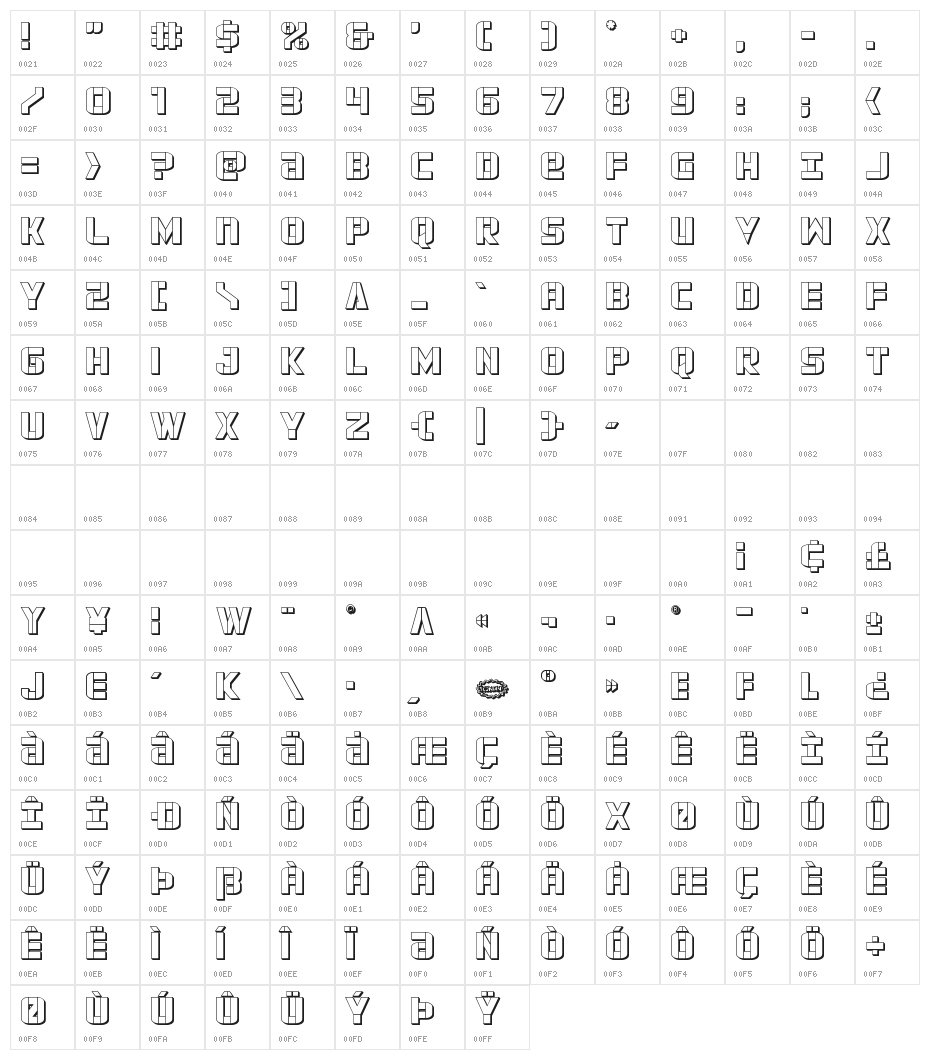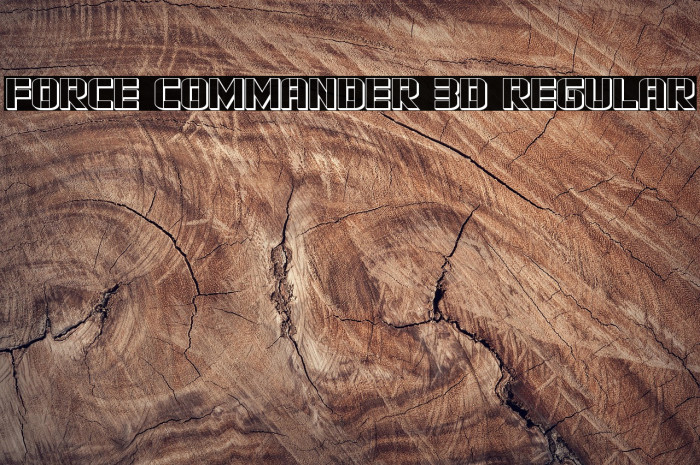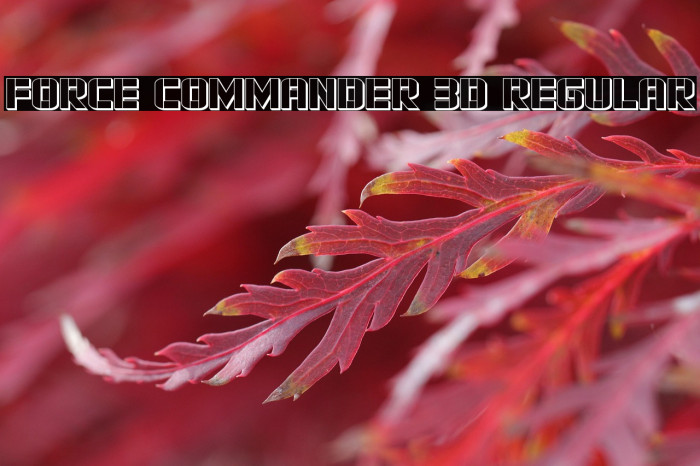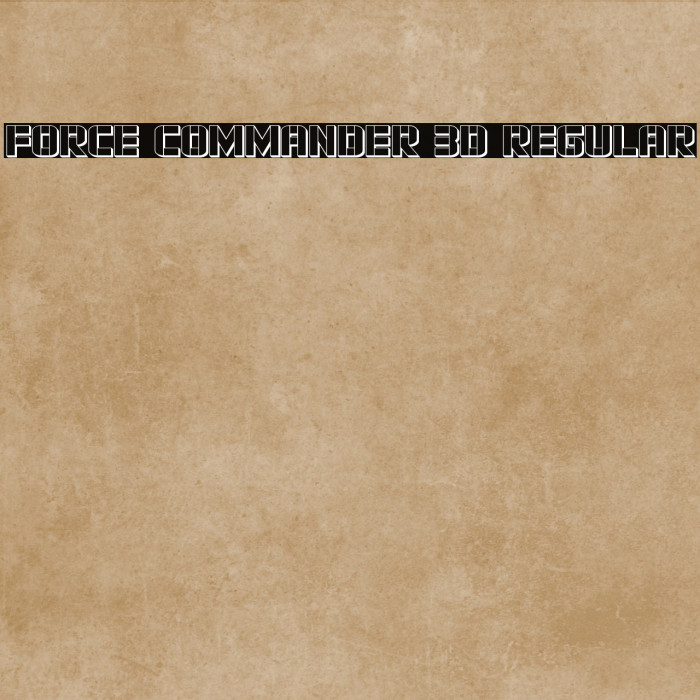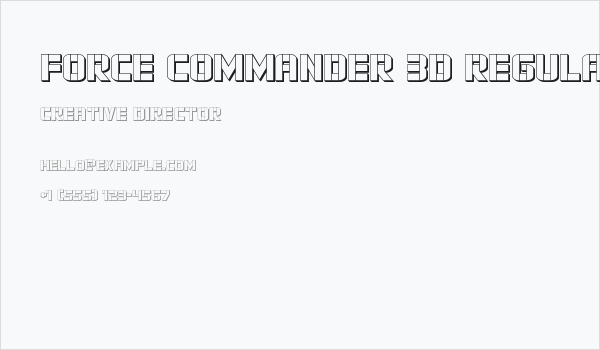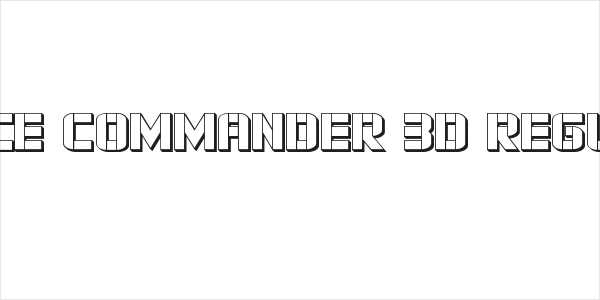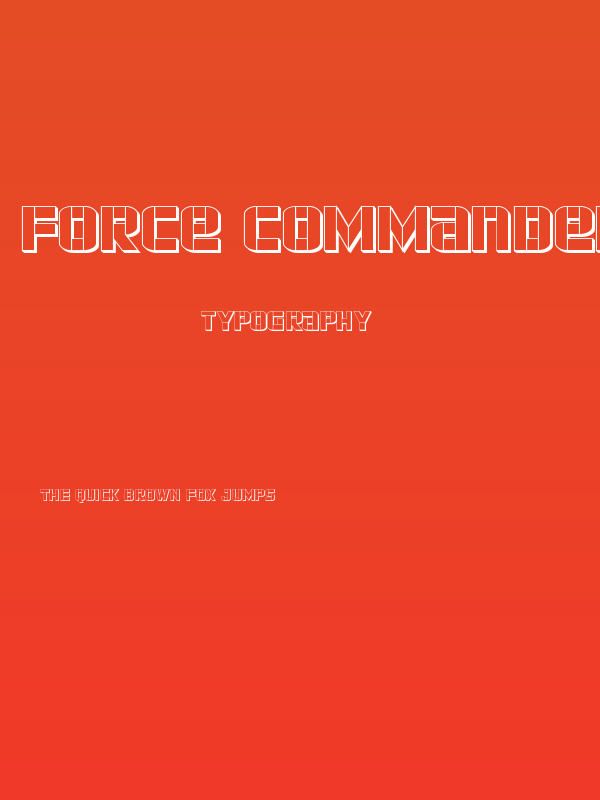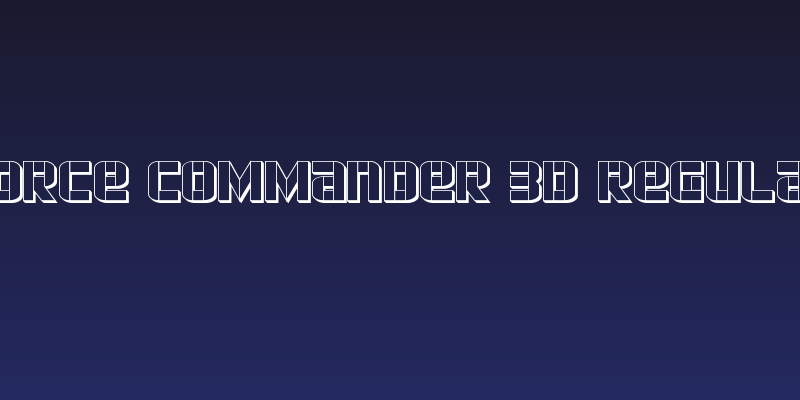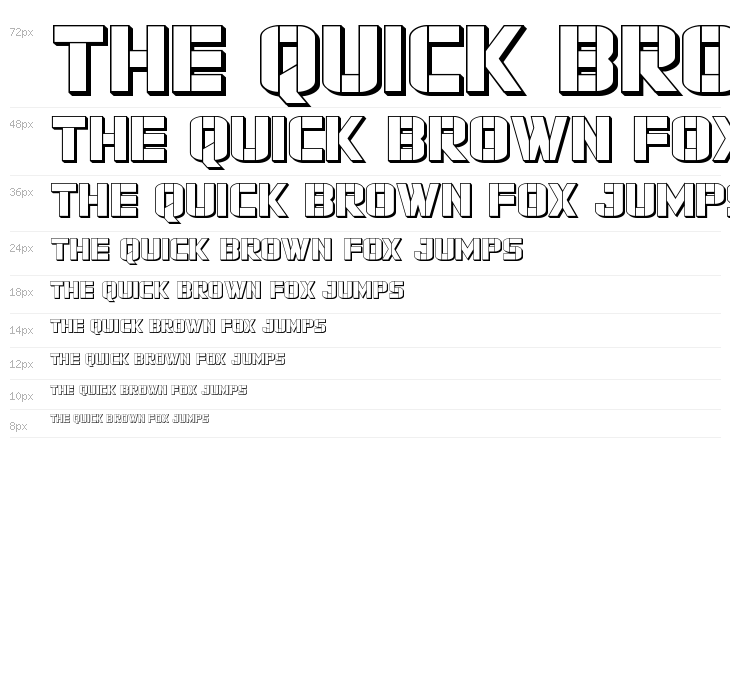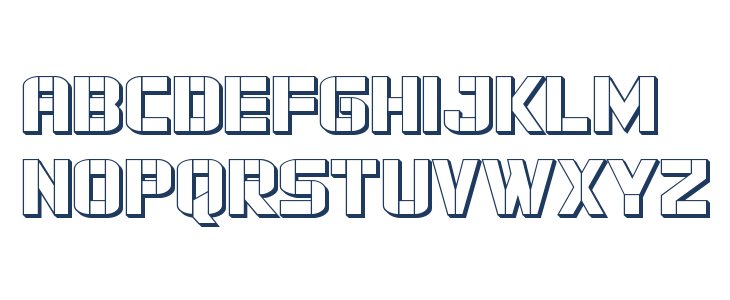
Force Commander 3D Regular Font
| Gesamtstil | Futuristic, Modern |
| Vorgeschlagene Projekte | Ideal for sci-fi themed projects, video game titles, tech company logos, or any design requiring a modern, standout typeface. |